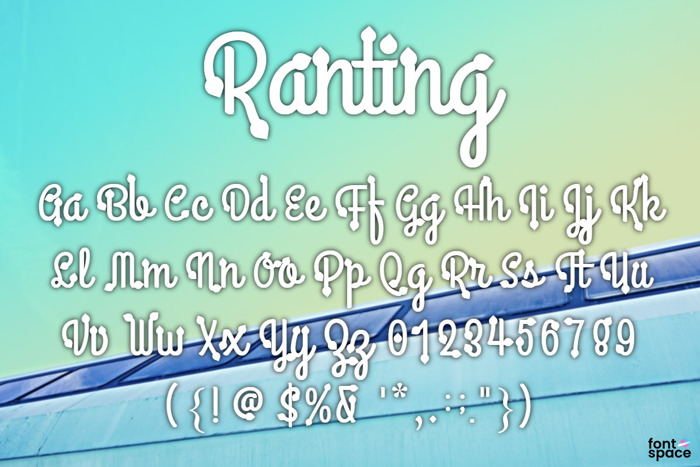
Ranting Font
Hello guys! How are you guys? I’m sure it’s very good! Introducing this our newest product, we name this product Ranting Fonts. Ranting Serif Font is modern calligraphy, with sweet touches and beautiful curves in each letter.
Ranting font is great for: wedding invitations, fashion magazines, logos, signatures, and is suitable for watermark photography.
Features: – Style Alternatives – Binders – Style Sets